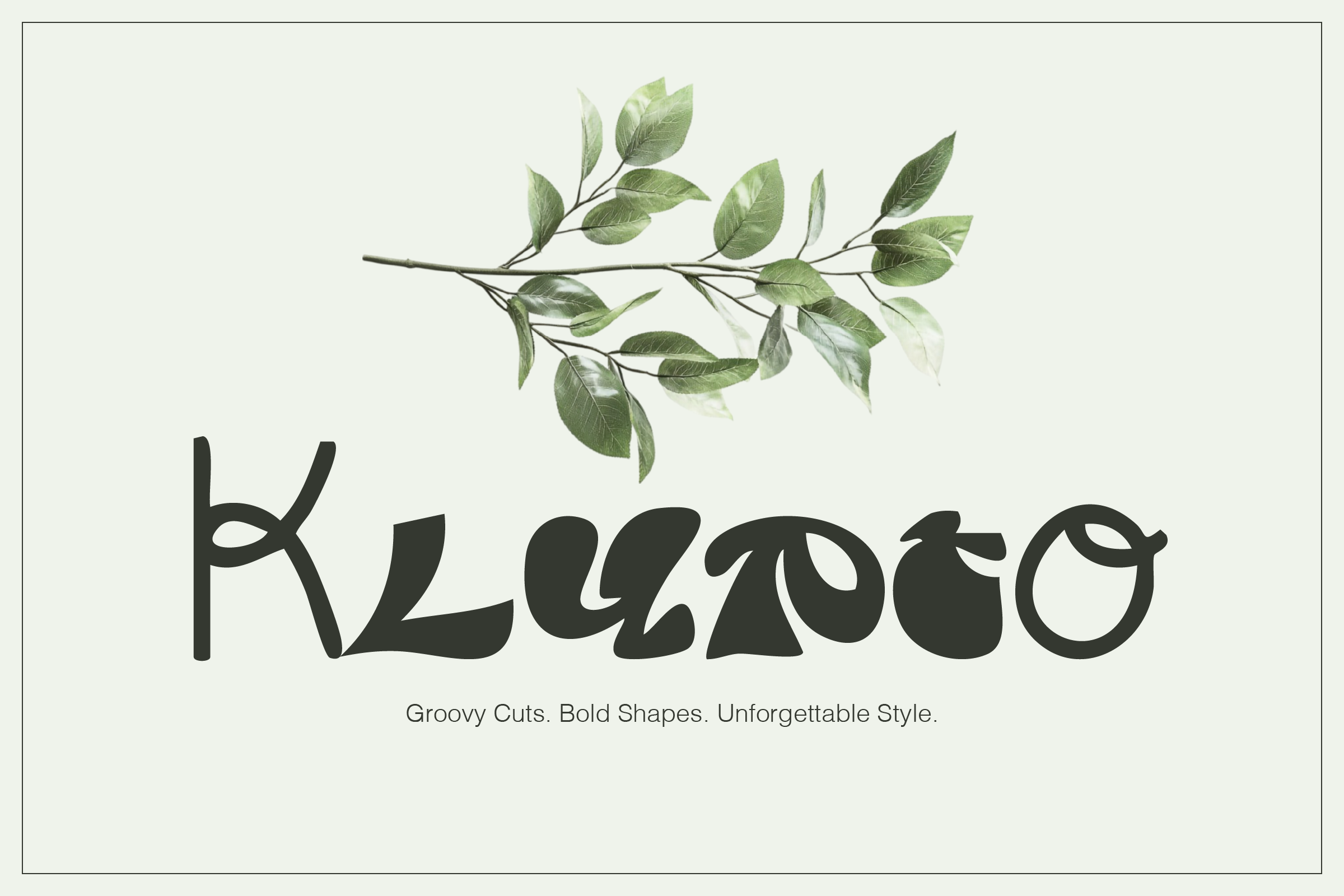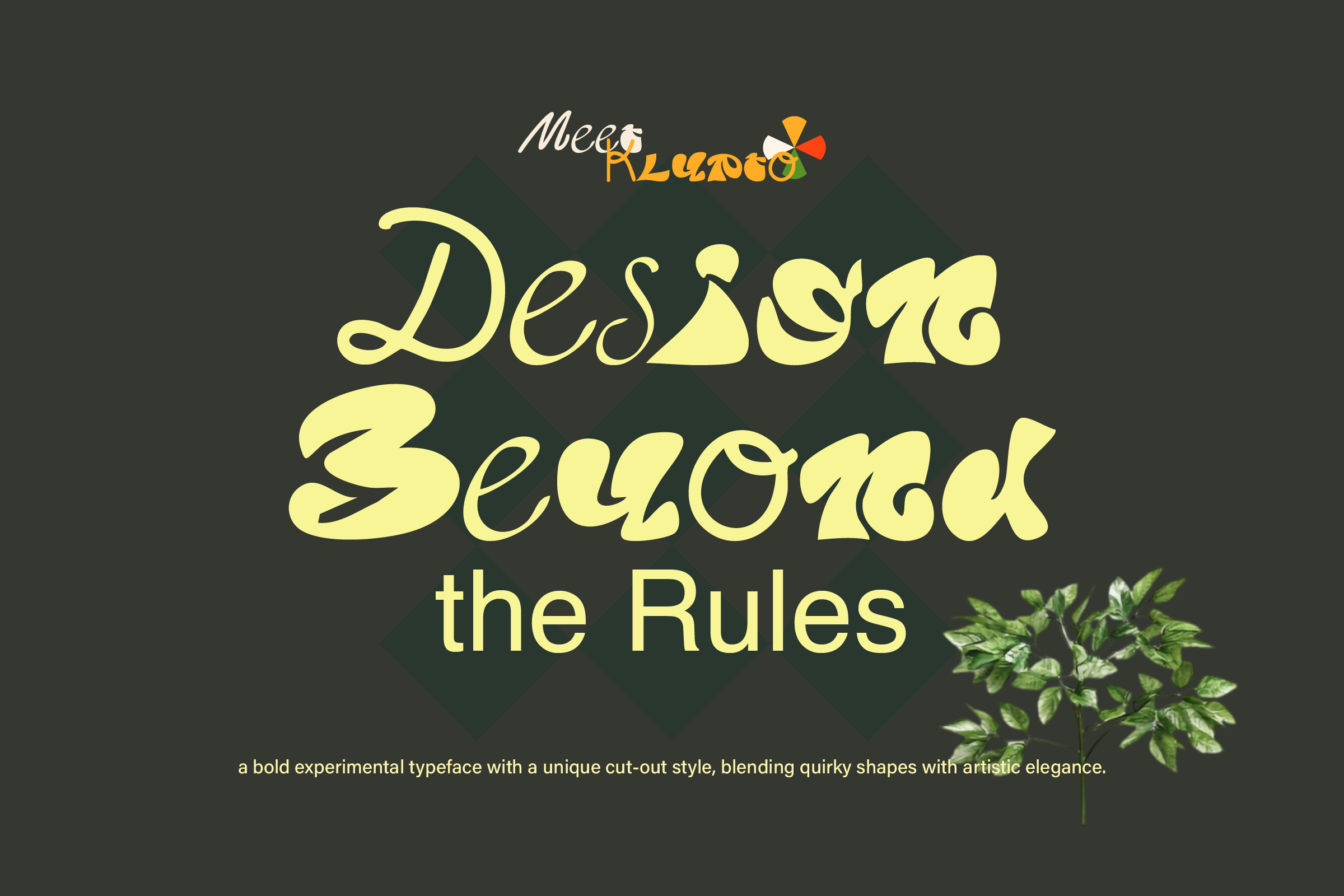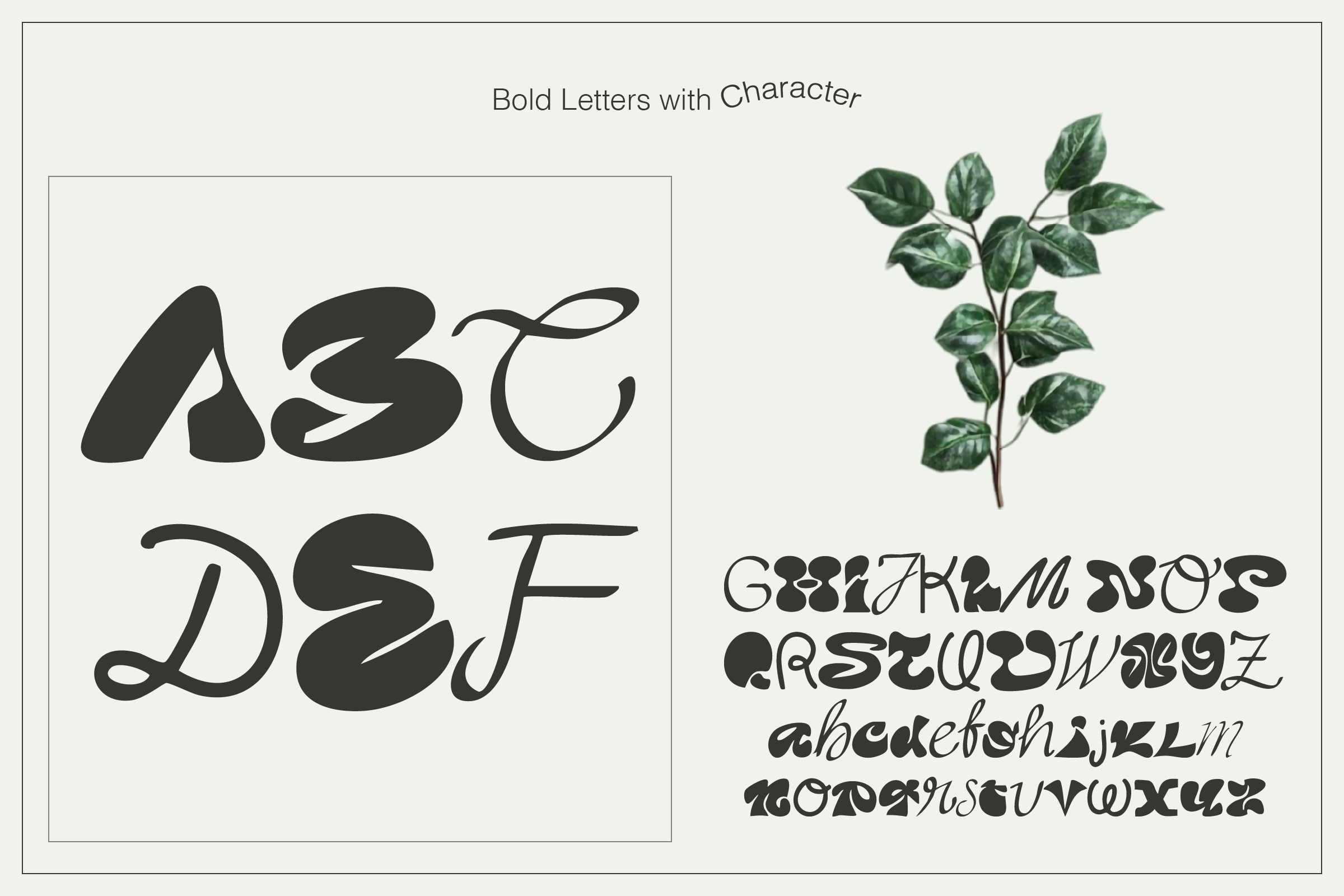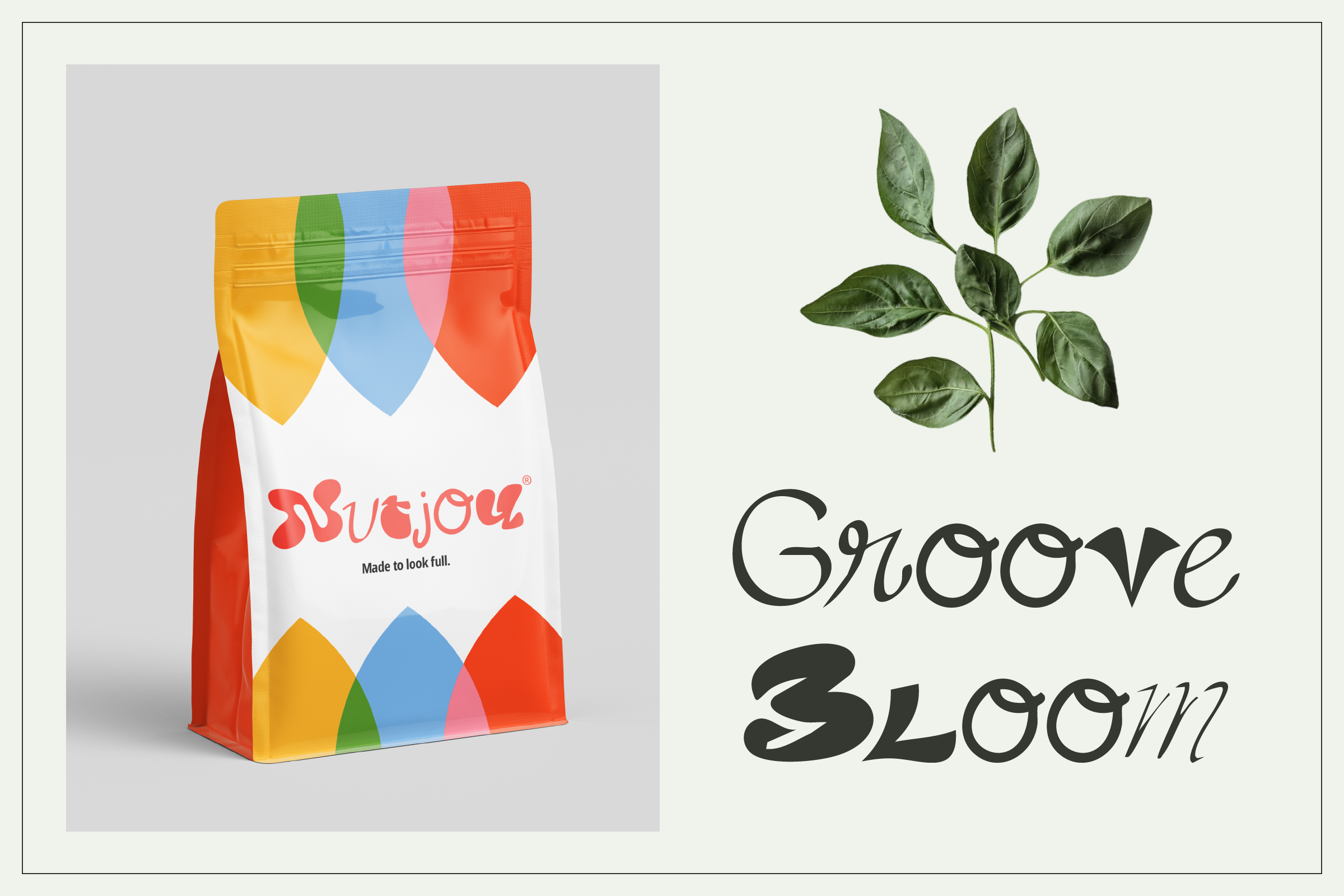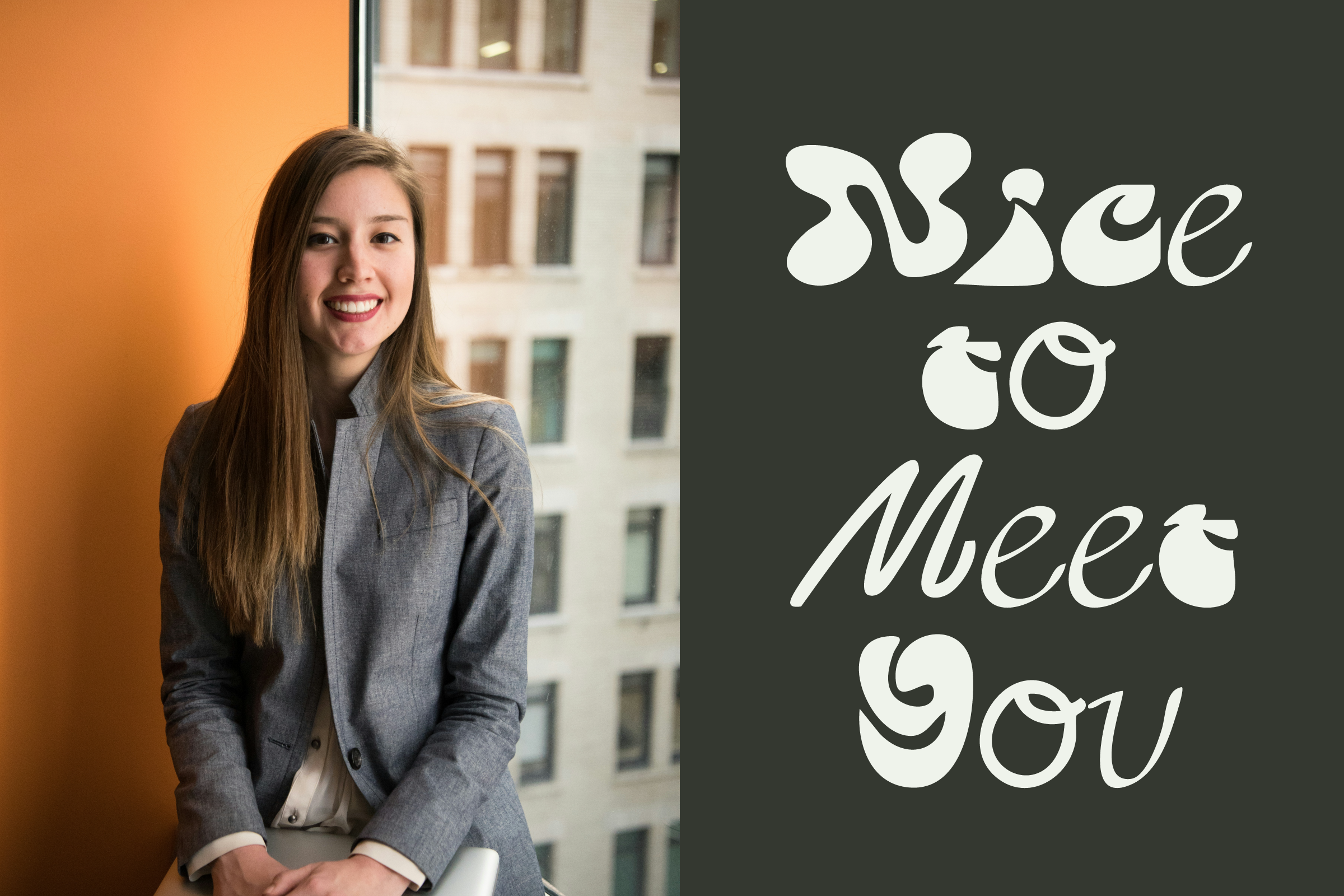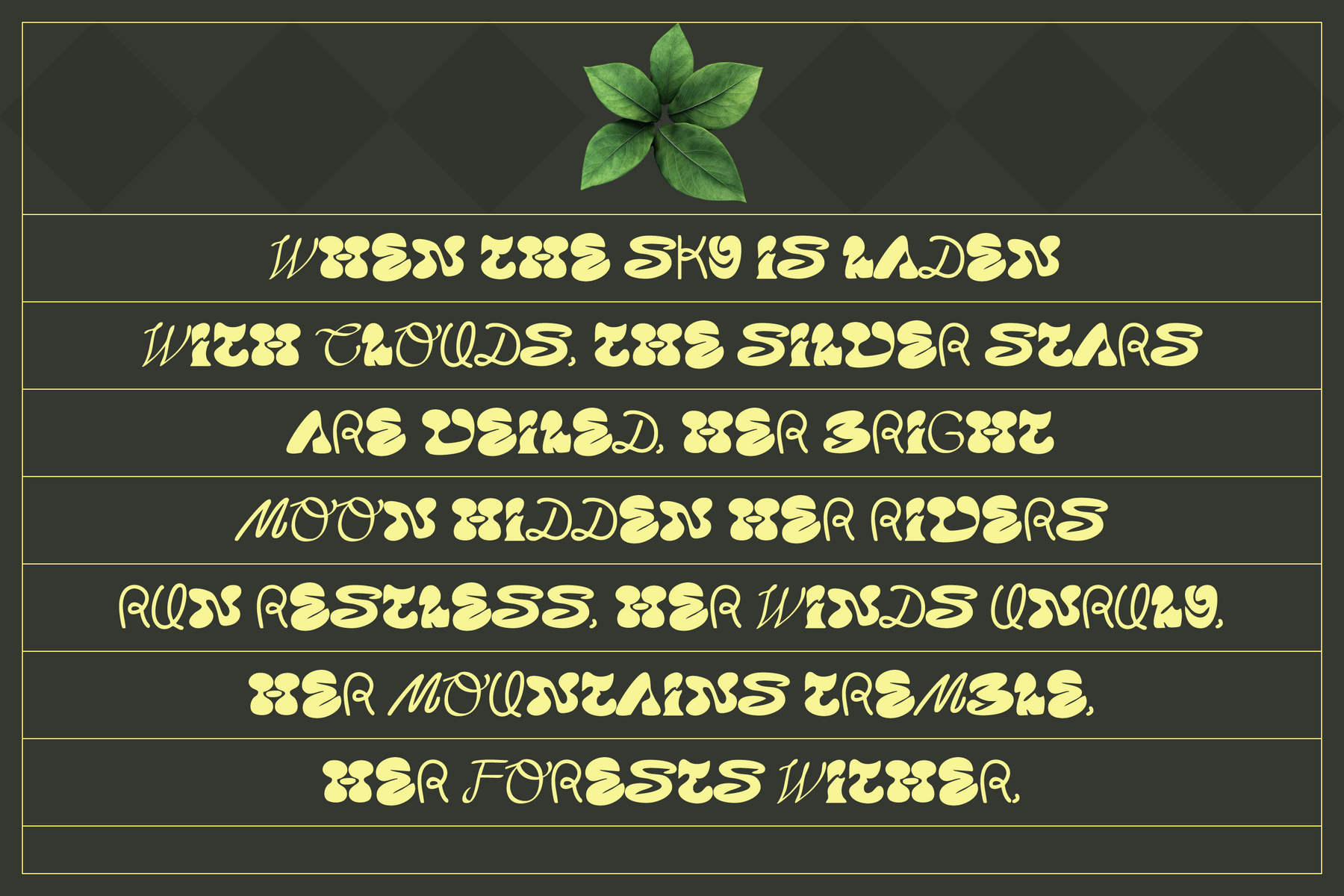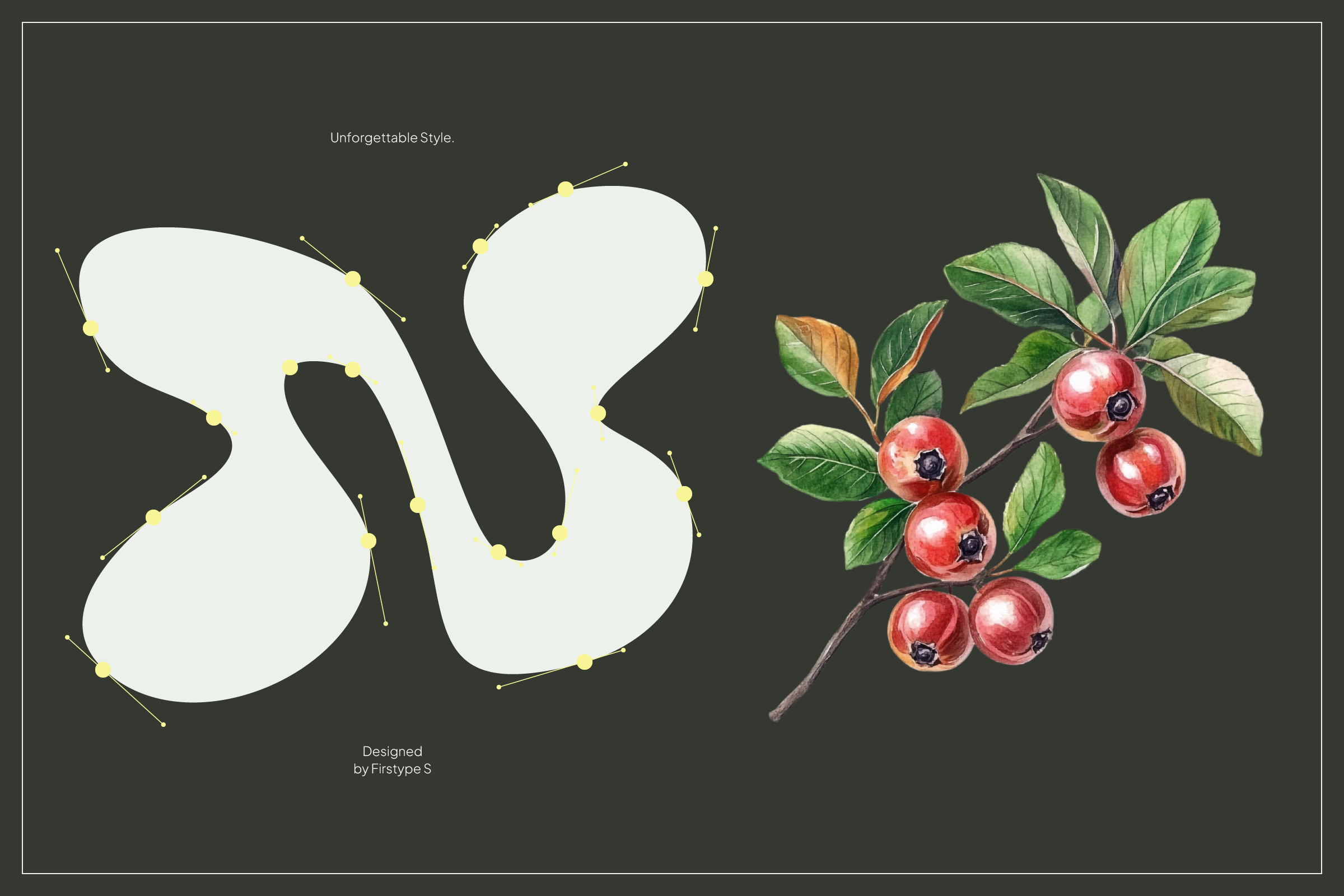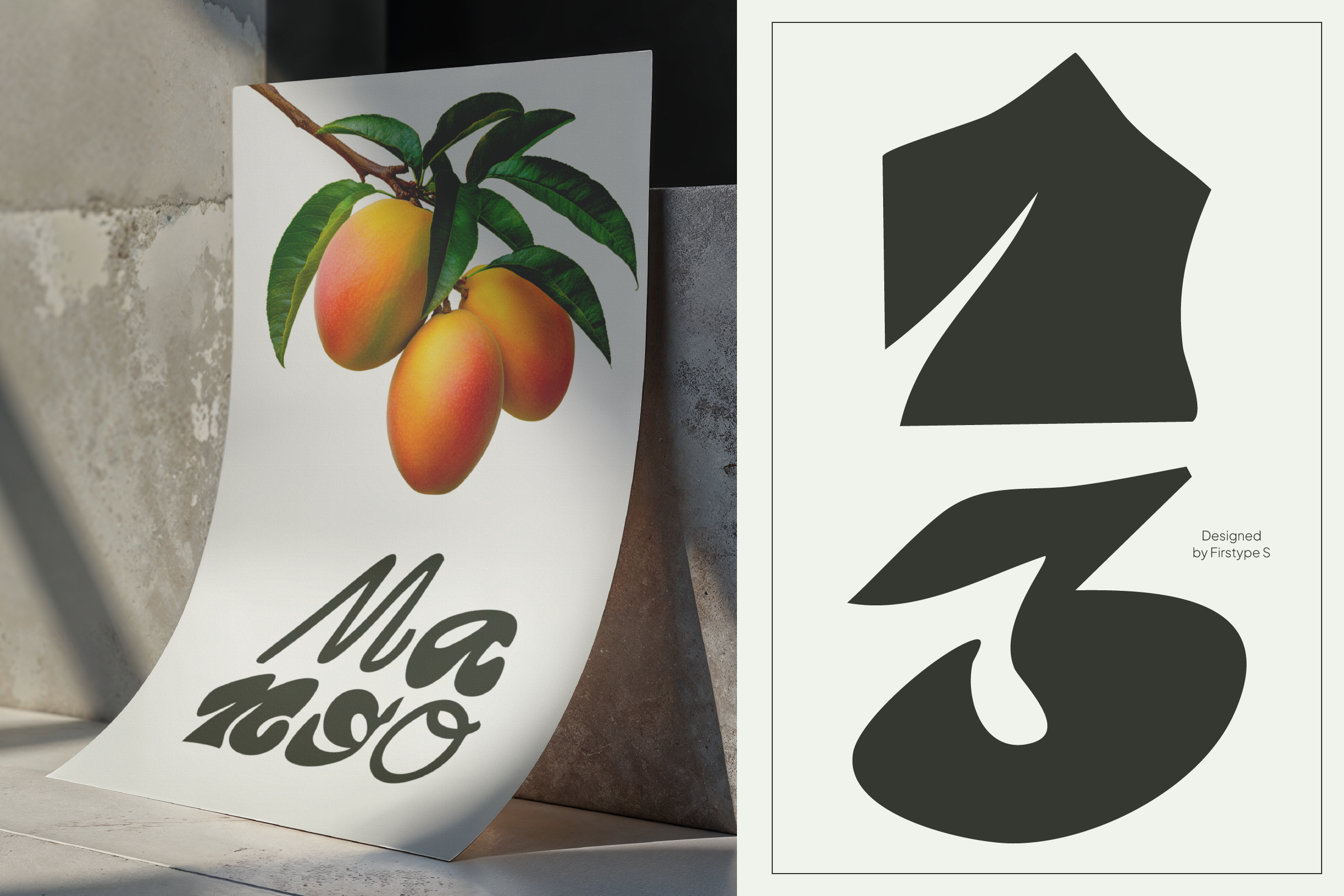
FT Klypto – Experimental Display Font for Creative Design
Firstype Studio
FT Klypto – Experimental Display Font for Creative Design
FT Krypto created by Firstype Studio is an experimental display font with a bold and unconventional character. Crafted for designers who want to stand out, this font is ideal for expressive visuals, artistic branding, and concept-driven projects.
✔ Ideal for posters & creative branding
✔ Bold character & strong personality